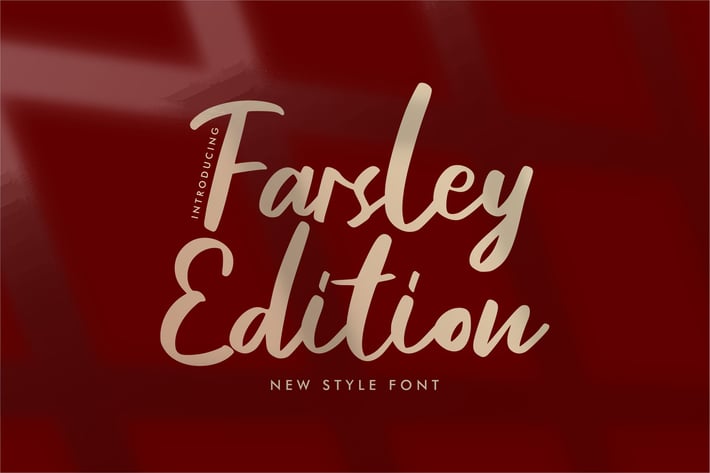
Farsley Edition New Style Font
Farsley Edition New Style Font - is a new font that is authentic and suitable for many of your visual needs, like for invitation, greeting cards, branding materials, business cards, quotes, posters, and more!
special character for Alternates and Ligatures